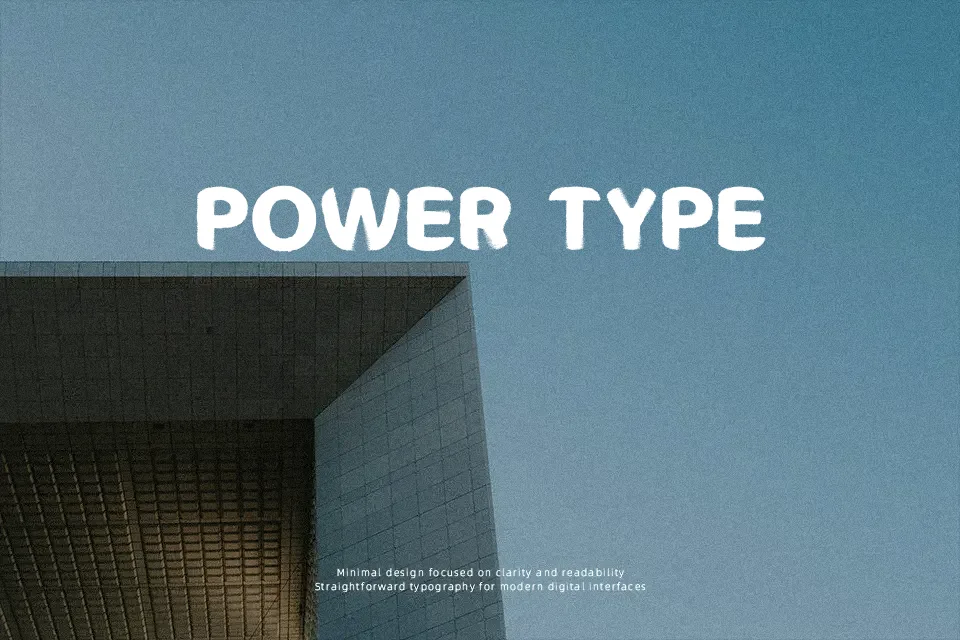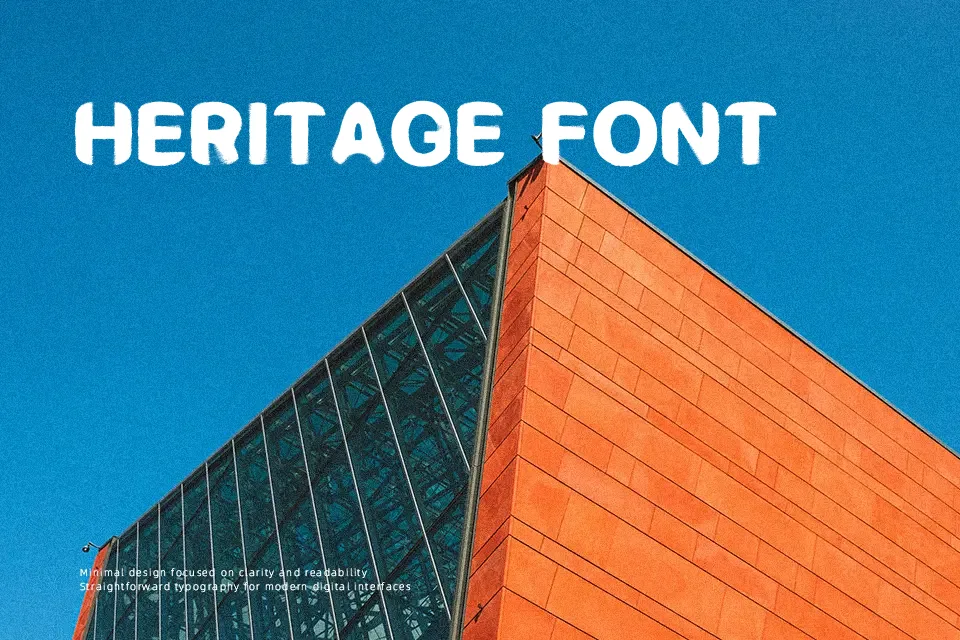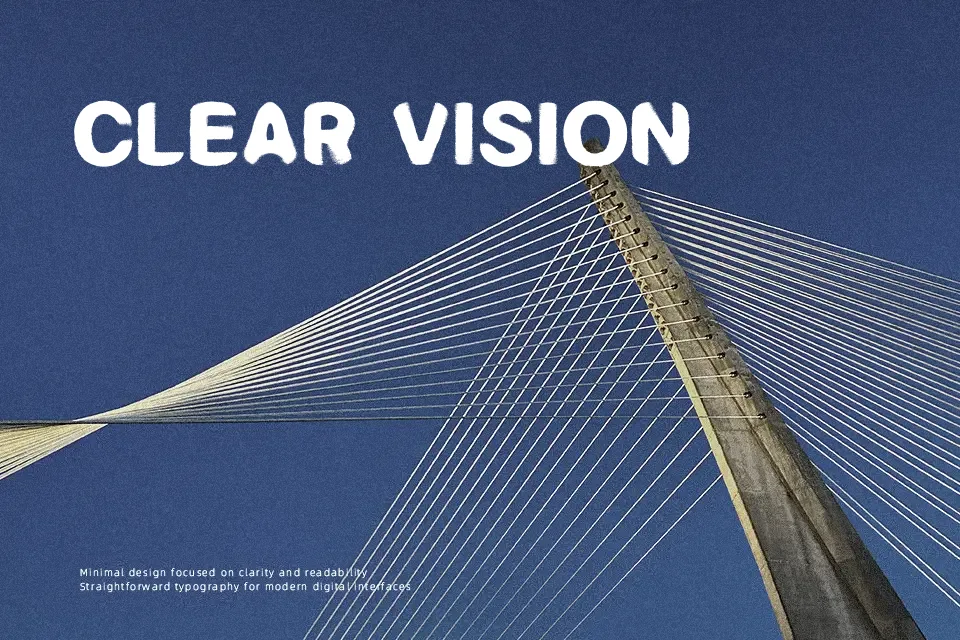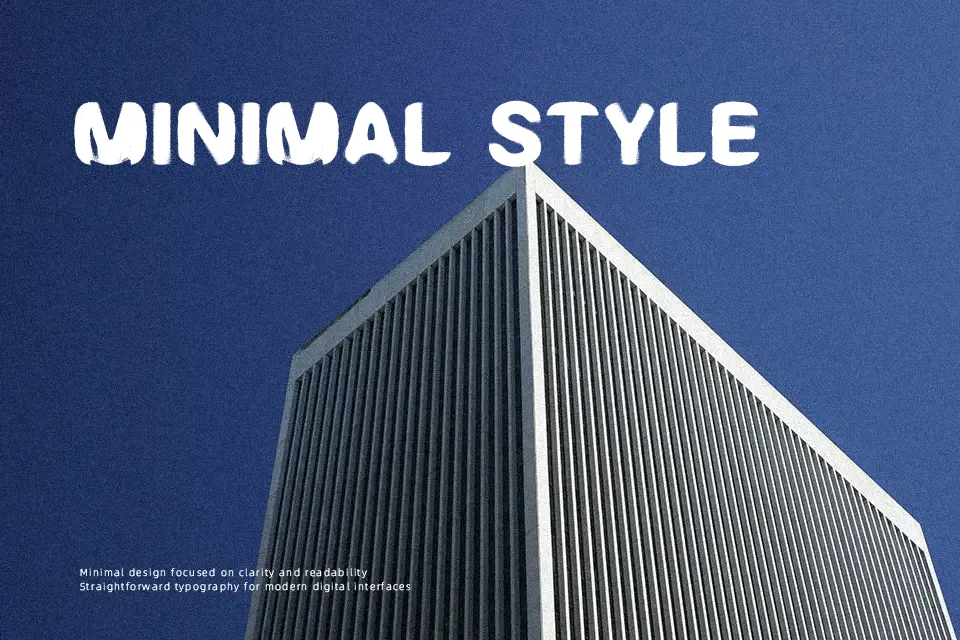
Rocket Font
Designed by Saji Johnny Kundukulam
Rocket Font presents a rugged, weathered visual identity characterized by its heavily eroded strokes. The letterforms exhibit a distressed texture with fragmented edges, creating an aggressive and energetic rhythm across the baseline. Because the internal structures are broken up by rough distressing, the typography performs best when displayed at larger sizes where the grunge details can be fully appreciated. The spacing remains relatively tight to hold the fragmented shapes together. Dense forms and irregular boundaries reduce continuous reading comfort, making it less suitable for long paragraphs or small captions. This rough aesthetic makes the design an excellent choice for striking apparel graphics, album covers, and energetic event posters.
punk music album covers, extreme sports event posters, urban streetwear branding, grunge apparel graphics
long paragraph text, small interface labels, corporate reports, spreadsheet data
Perfect for branding, fashion, and music, with a bold and decorative style.